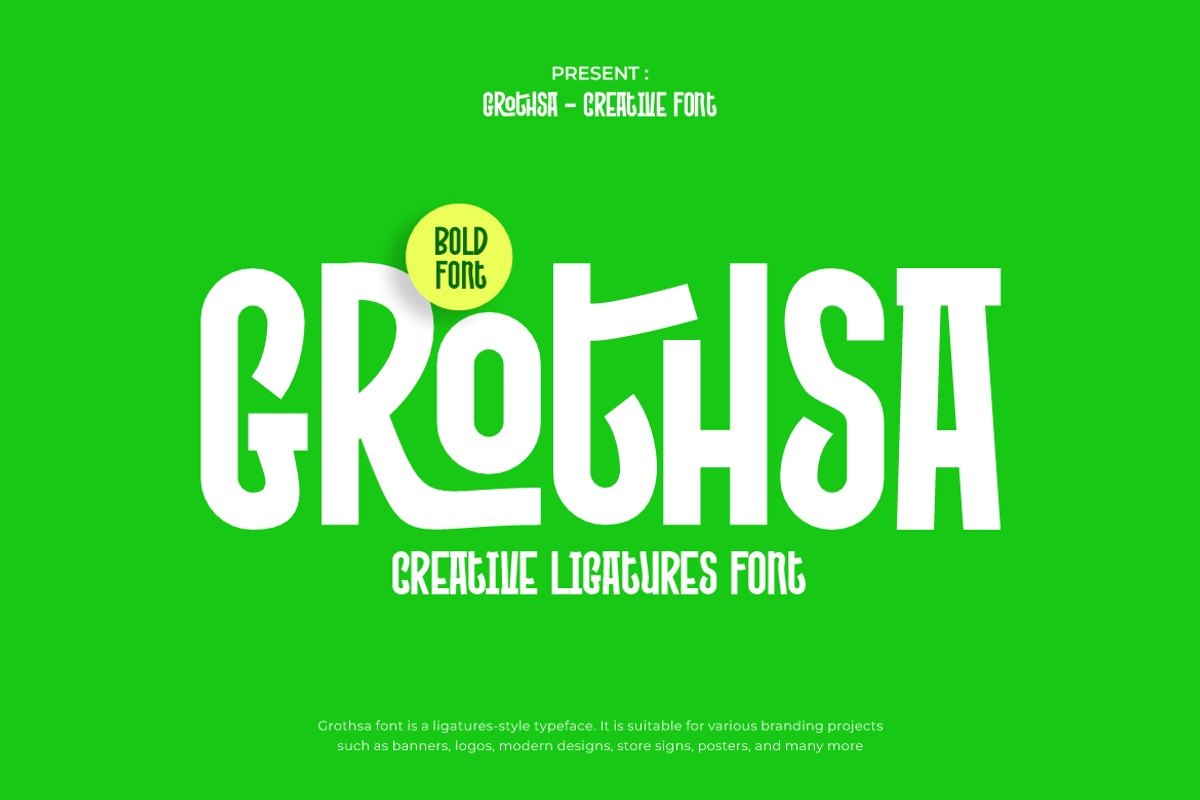
Grothsa – Modern Sans Serif Font
Grothsa – Modern Sans Serif Font brings a balanced structure and contemporary look, making it suitable for both digital and print design. Grothsa Font is a bold and authentic display typeface. It’s perfect for various branding projects such as logos, sports designs, and more. This font stands out beautifully in a wide range of contexts.